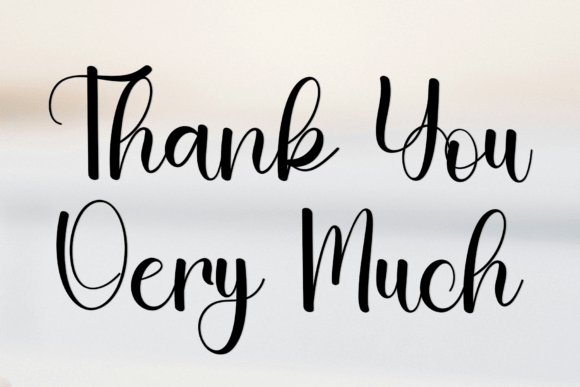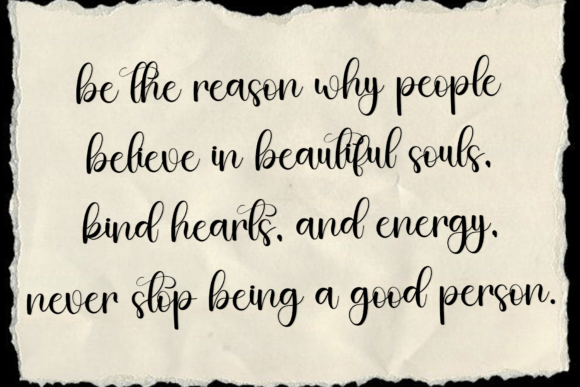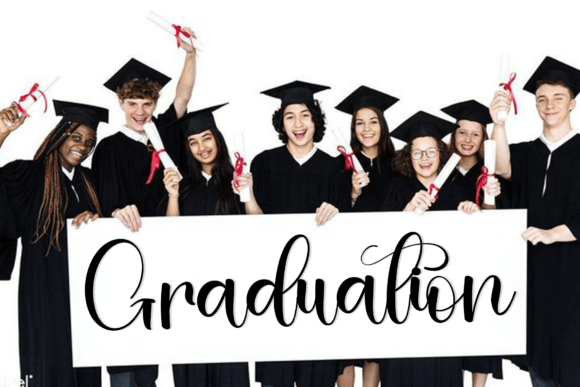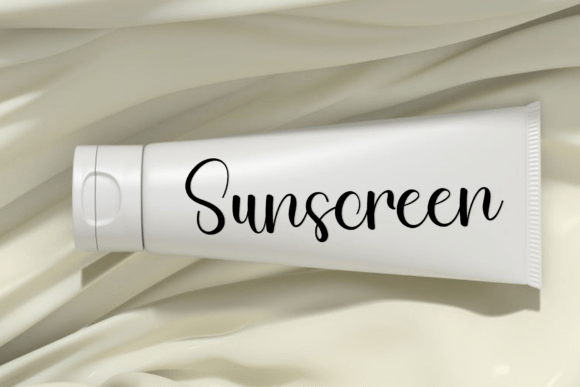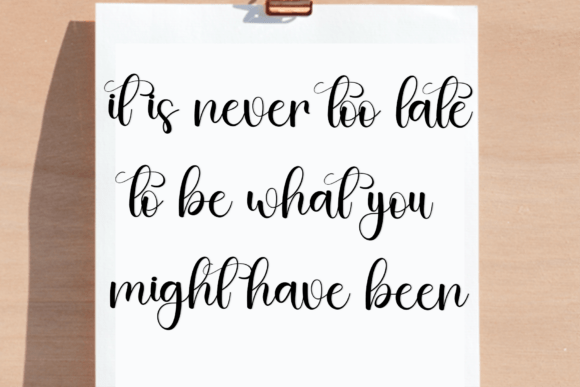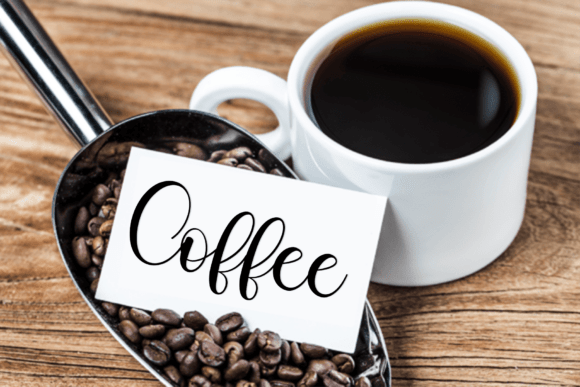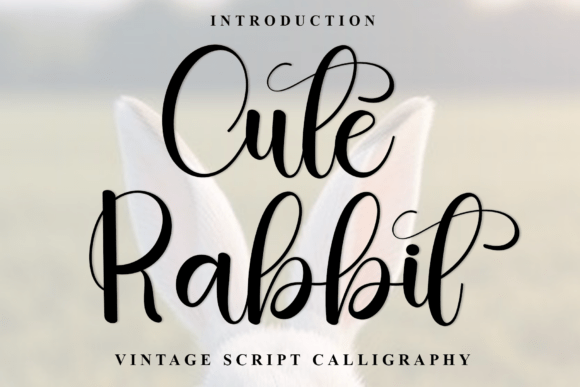
Cute Rabbit Font: Elevate Your Designs with Elegant Sophistication
Are you searching for a font that exudes elegance, sophistication, and a touch of vintage charm? Look no further than the Cute Rabbit Font. This beautiful script font is perfect for designers and crafters seeking to add a level of refinement and customization to their work. In this article, we’ll delve into the unique features of Cute Rabbit and explore its various applications, from Easter branding to lifestyle editorial titles.
The Distinctive Characteristics of Cute Rabbit Font
Cute Rabbit is a sophisticated and rhythmic script font that embodies a classic, “vintage script” aesthetic. Its high-contrast visual rhythm is defined by thick, grounded downstrokes and delicate hairline connectors. The font’s distinctive personality is characterized by soaring, looping flourishes, including graceful ascenders and spiraling terminal swashes. These elegant features create a sense of customized, artisanal artistry, making Cute Rabbit a premier choice for designers seeking to add a touch of luxury to their work.
Perfect for Seasonal Easter Branding
Easter is a time for renewal, celebration, and whimsy. Cute Rabbit Font is an ideal choice for Easter branding, adding a touch of sophistication and elegance to your designs. Whether you’re creating packaging, promotional materials, or social media graphics, Cute Rabbit’s playful, yet refined aesthetic is sure to delight. The font’s Easter-friendly features, such as its spring-inspired flourishes and delicate lines, evoke the joy and wonder of the season.
Boutique Event Stationery and Professional Signatures
Cute Rabbit Font is also well-suited for boutique event stationery, including wedding invitations, save-the-date cards, and thank-you notes. The font’s elegant, cursive script and refined flourishes create a sense of luxury and sophistication, perfect for high-end events and special occasions. Additionally, Cute Rabbit’s distinctive personality makes it an excellent choice for professional signature watermarks, adding a touch of personality and style to your correspondence.
Upscale Lifestyle Editorial Titles
For designers and publishers working on lifestyle editorial projects, Cute Rabbit Font offers a level of sophistication and refinement that’s hard to match. The font’s elegant lines, flowing flourishes, and classic aesthetic make it perfect for titles, headings, and pull-quotes in publications focused on fashion, beauty, and lifestyle. Cute Rabbit adds a touch of high-end style to any editorial project, elevating the overall design and reader experience.
Tips for Using Cute Rabbit Font Effectively
To get the most out of Cute Rabbit Font, consider the following design tips:
• Use Cute Rabbit as a headline or title font to add a touch of elegance and sophistication to your designs.
• Pair Cute Rabbit with simpler fonts, such as sans-serif or serif fonts, to create visual contrast and hierarchy.
• Experiment with different colors and textures to enhance the font’s luxurious feel and add depth to your designs.
• Don’t be afraid to get creative with Cute Rabbit’s flourishes and swashes – they’re designed to add a touch of personality and whimsy to your work.
Cute Rabbit Font is a versatile and elegant script font that’s perfect for designers and crafters seeking to add a level of sophistication and refinement to their work. With its distinctive personality, high-contrast visual rhythm, and looping flourishes, Cute Rabbit is an excellent choice for a wide range of design applications, from Easter branding to lifestyle editorial titles. Whether you’re a seasoned designer or just starting out, Cute Rabbit Font is sure to inspire your creativity and elevate your designs.